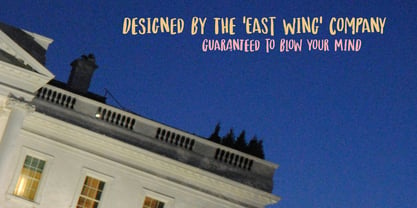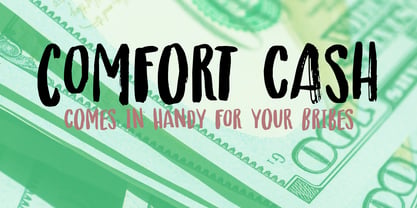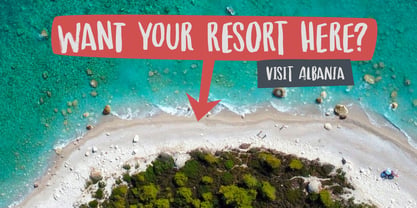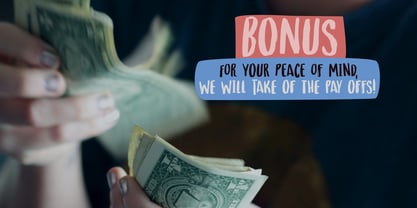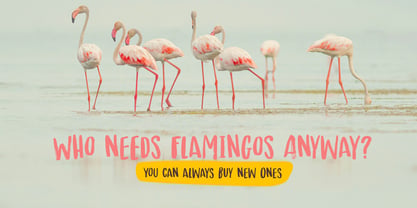
Comfort Cash
by Hanoded
Comfort Cash was a font I made using a brush and Chinese Ink. It was inspired by a scandal unfolding in the lovely country of Albania, where some wealthy and privileged people are trying to build a massive resort in a protected nature reserve, frequently visited by flamingos.
Comfort Cash comes with massive language support (including Albanian) and a lovely set of alternates, which cycles as you type.